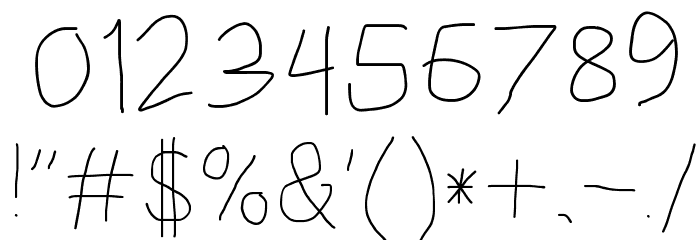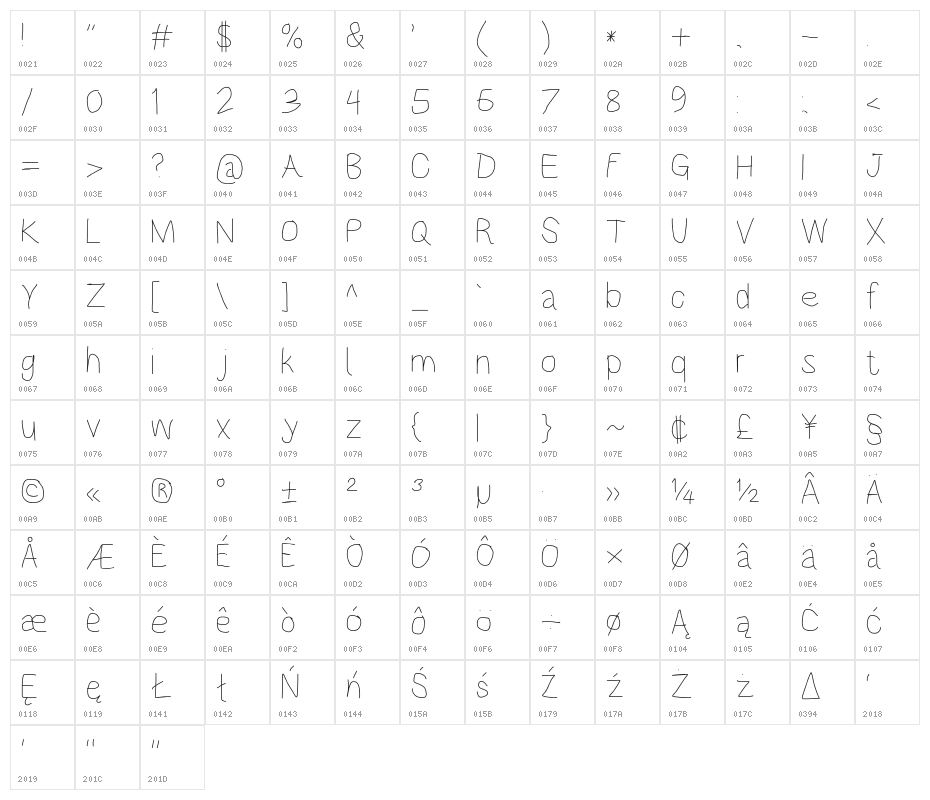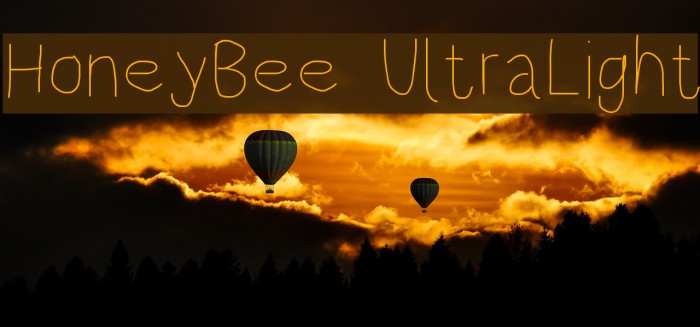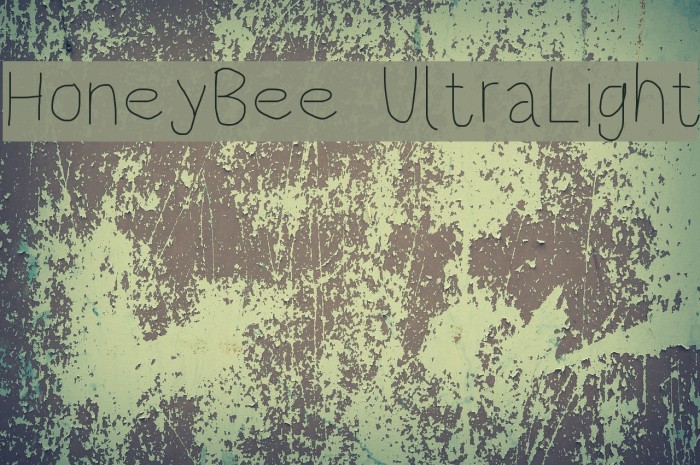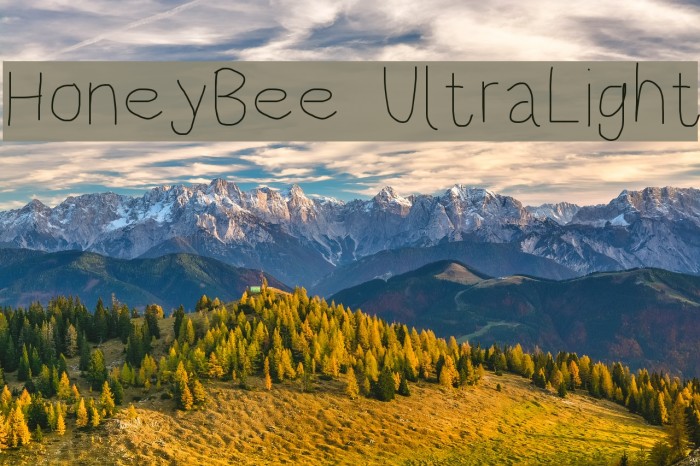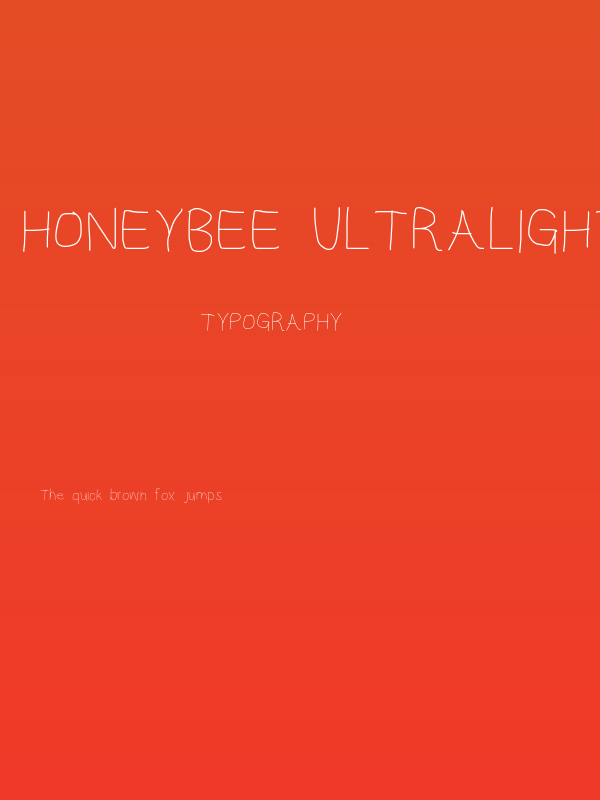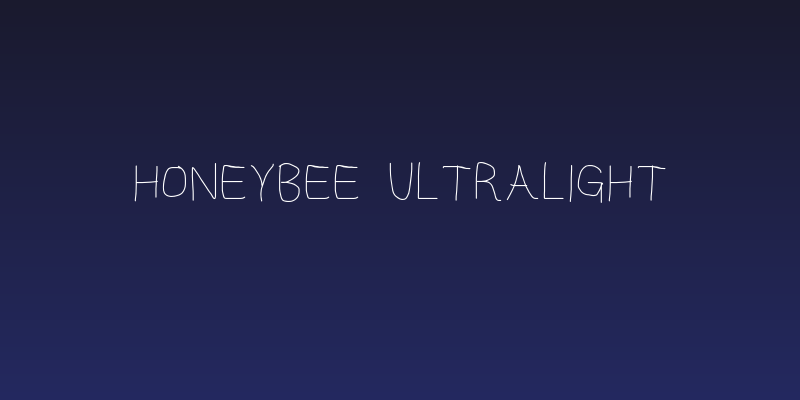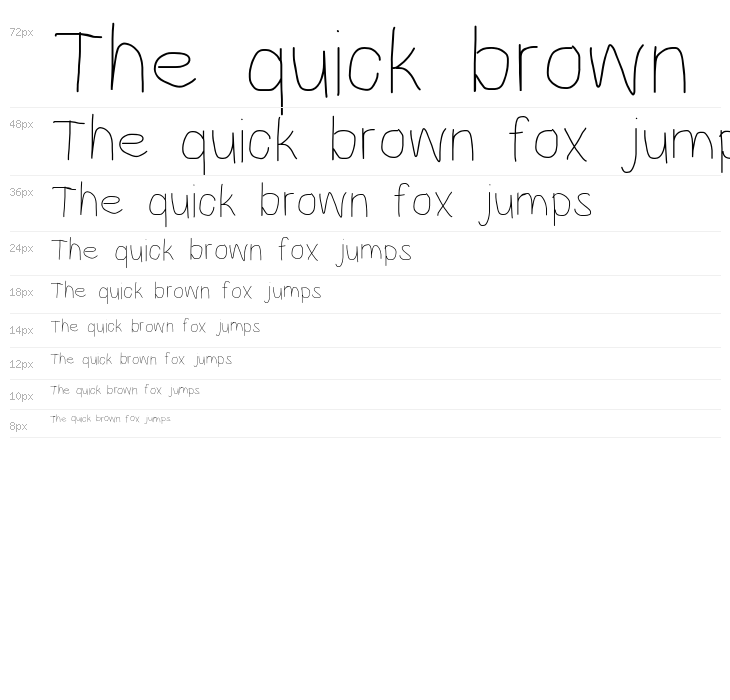
HoneyBee UltraLight Font
HoneyBee UltraLight Description
This font features a playful and whimsical handwritten style with ultra-light strokes, giving it a delicate and airy appearance. The characters are slightly irregular, adding a charming, organic feel. The uppercase letters are tall and slender, while the lowercase letters maintain a consistent height, enhancing readability. The numerals and special characters follow the same thin, flowing design, making the font versatile for various uses. Its informal and friendly look makes it suitable for creative projects that require a personal touch.
| Overall Style | Whimsical |
| Use Case | Headlines, Casual text, Creative projects |
| Proposed Projects | Ideal for greeting cards, children's books, casual invitations, and creative branding. |